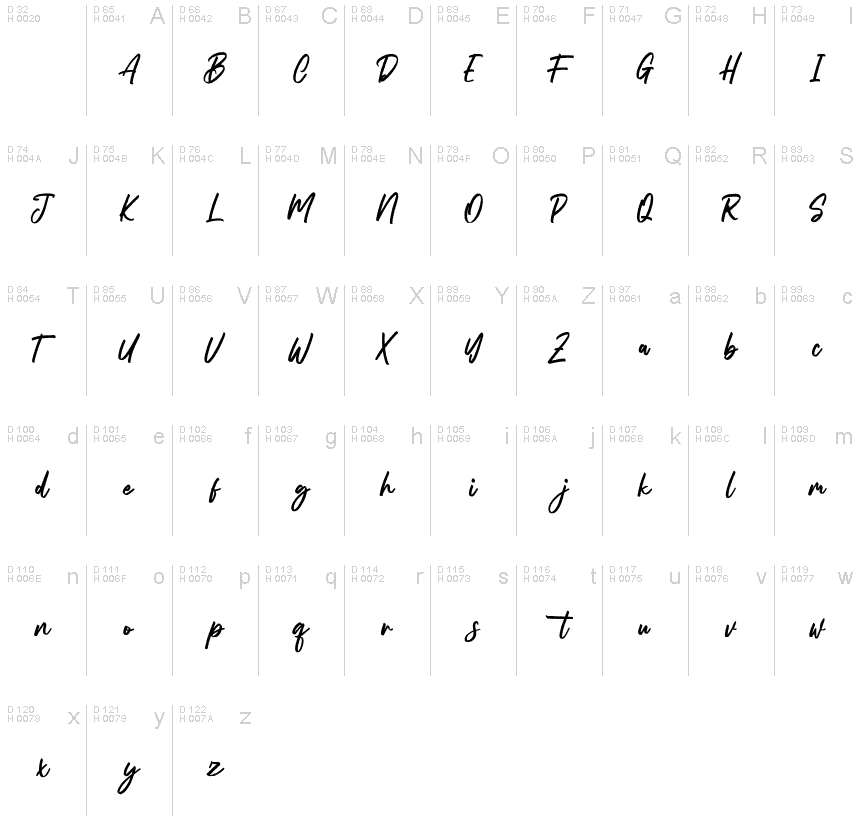
Argenthus Free Regular
Experience the elegance of Argenthus, a stunning semi-light handwritten signature font created by Maulana Creative. Perfect for adding a touch of sophistication to your designs, Argenthus is the ideal choice for various projects ranging from wedding invitations and branding materials to social media graphics and product packaging. This font's unique style and flowing strokes will make your text stand out in any setting, creating a memorable impression on your audience. Whether you're looking to add some personality or elevate your designs with a touch of class, Argenthus is the perfect semi-light font for you!